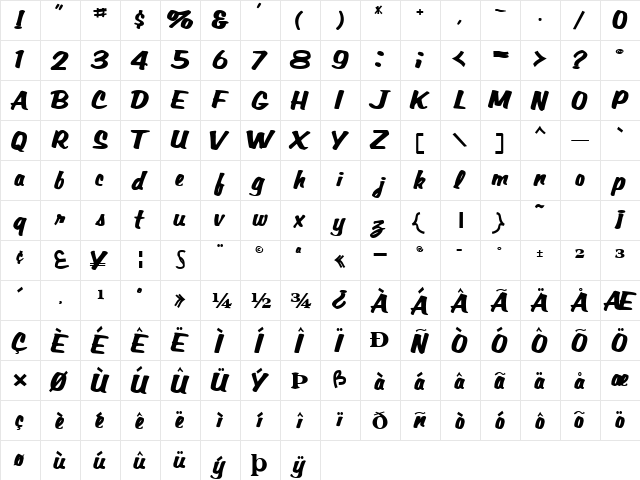
CanToshaText63 Bold
Design Context for CanToshaText63 Typeface
CanToshaText63 is a composed and adaptable typeface that performs quietly and consistently across a wide range of design contexts. Its bold stroke weight gives it real presence on the page.